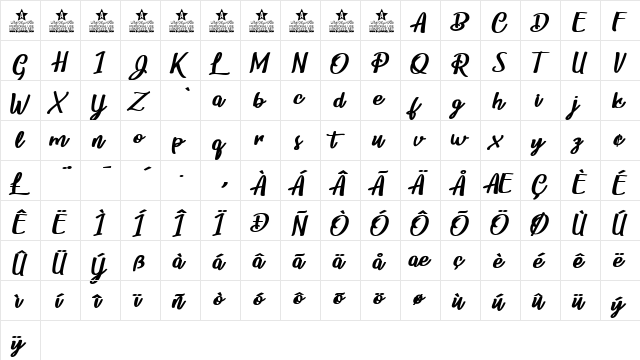
Childrens Party Personal Use Regular
Design Context for Childrens Party Personal Use Typeface
Childrens Party Personal Use trades formality for fun, with bouncy, characterful letterforms that bring warmth and energy to any project.
Font Pairing: Pairs well with a rounded or humanist sans for body copy, maintaining the friendly tone without relying on Childrens Party Personal Use to carry extended reading.
Pro Tip: Use Childrens Party Personal Use at larger display sizes where its expressive character can land. Pair with a clean, simple sans for body copy to maintain readability.